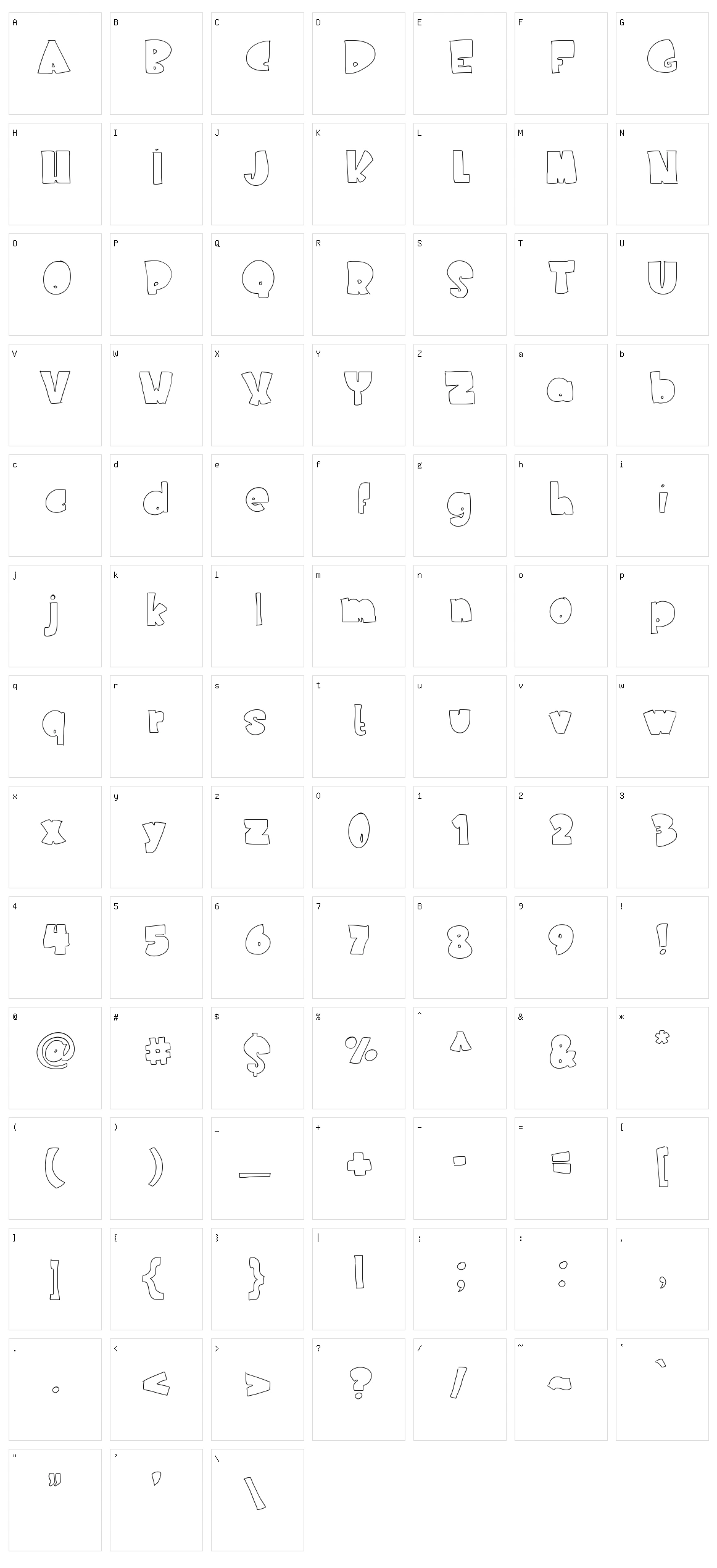
The free font Nederland Fantasy is carefully designed by artismelb | Melanie Blanco, showcasing a thoughtful balance of creativity and usability and falls under the Cartoon font style. When you download the ZIP file, it contains only 132.12 KB of font files, making it lightweight and quick to download. Please review the license details below to understand permitted usage and distribution rights. If license information is not available, we recommend using this font for personal projects only or contacting the author directly for commercial usage permissions.